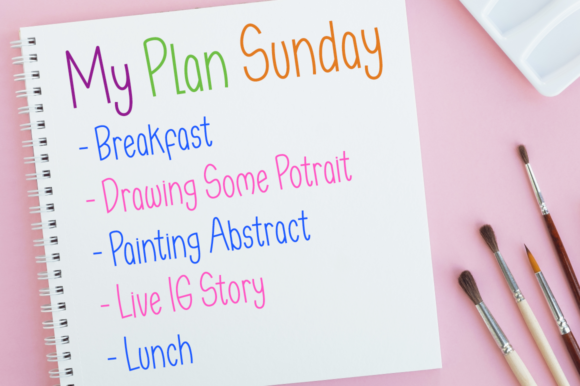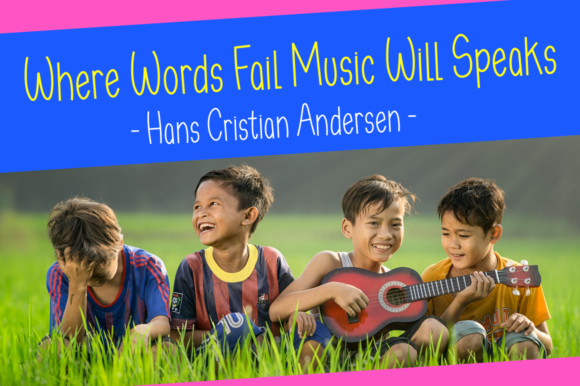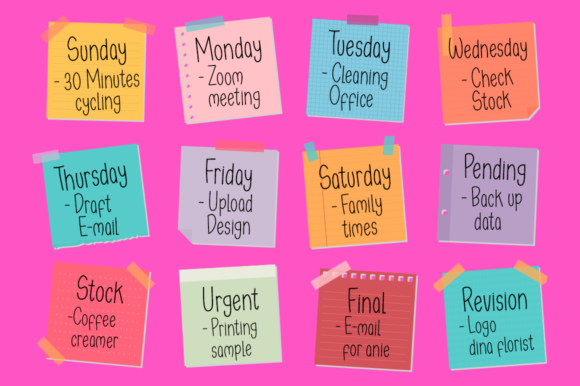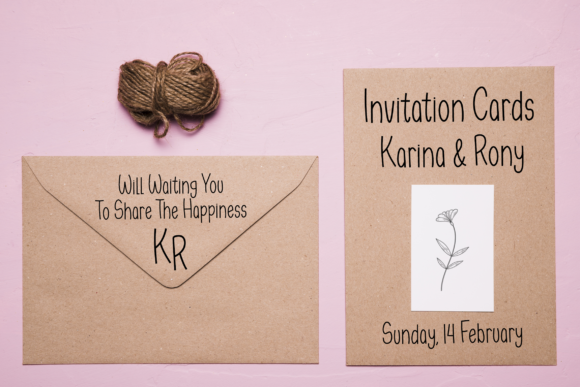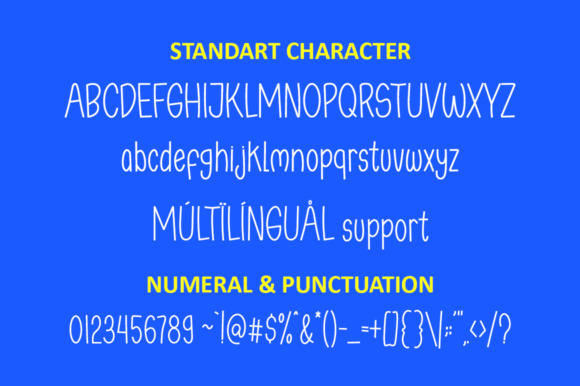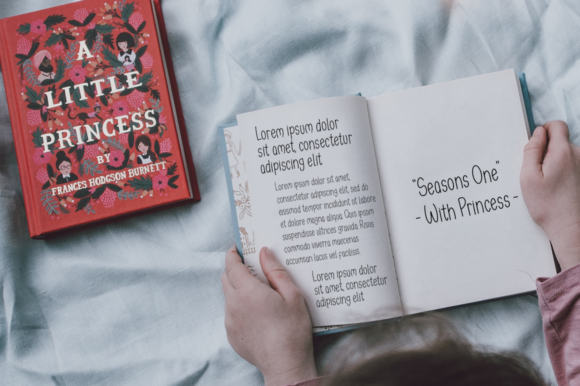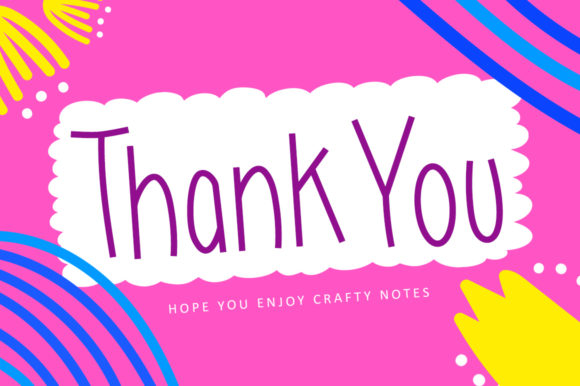
Crafty Notes Font
About Crafty Notes Font
Crafty Notes is a clean, thin and simple handwritten font. Its natural and unique style makes it incredibly fitting to a large pool of designs. The only limit is your imagination!